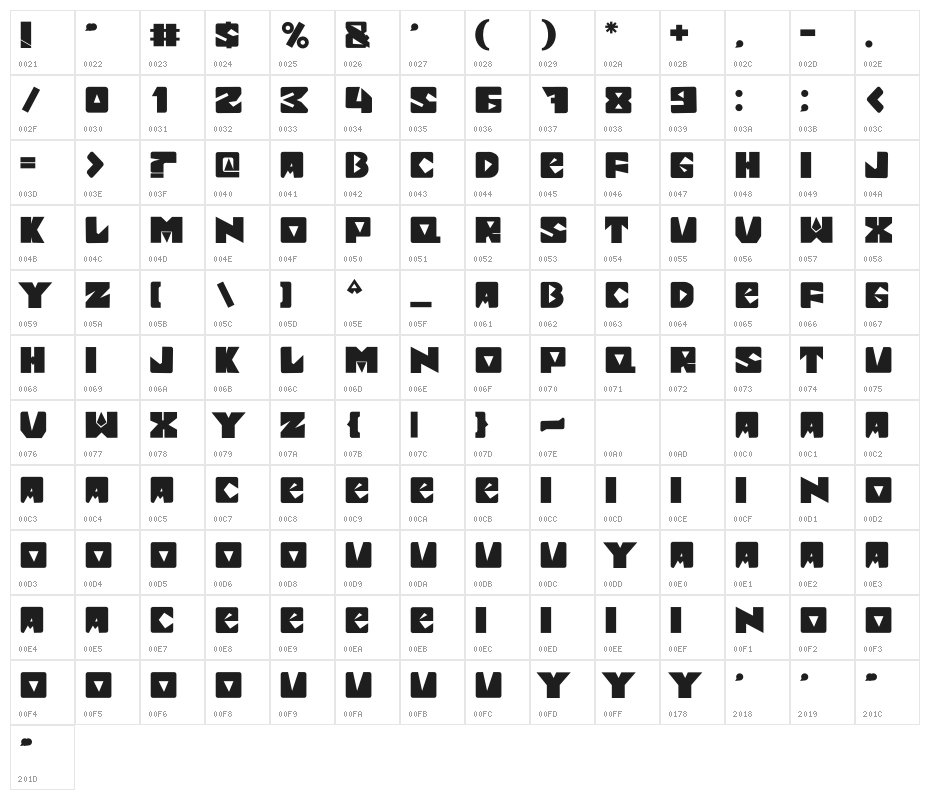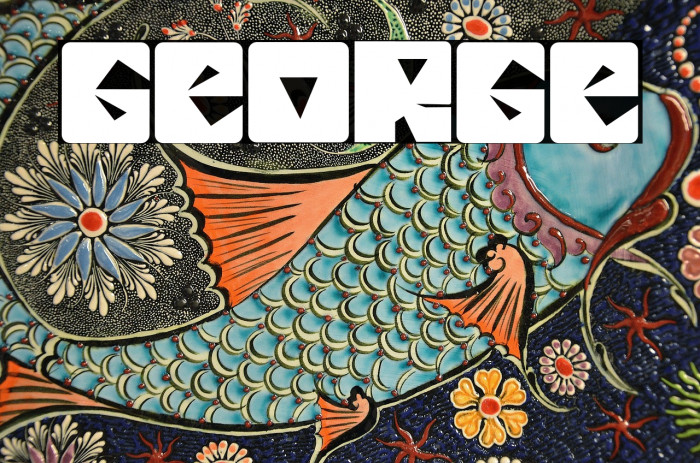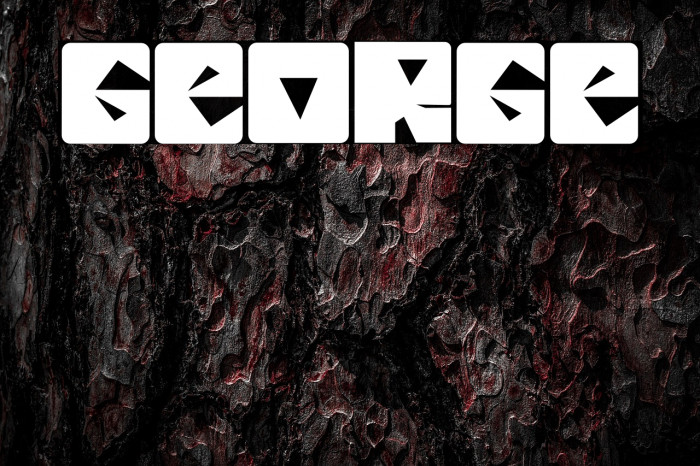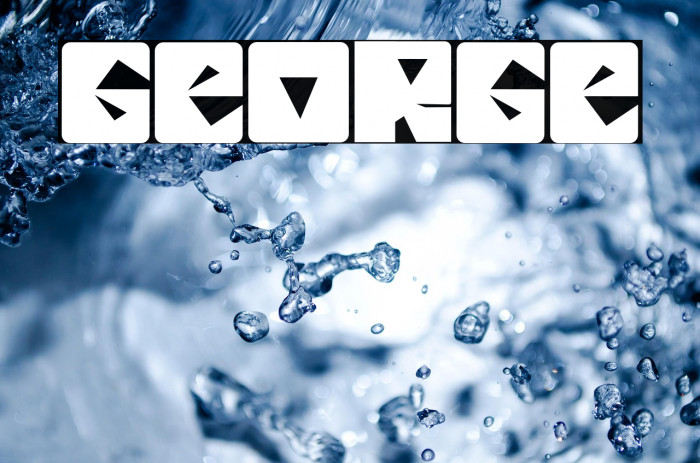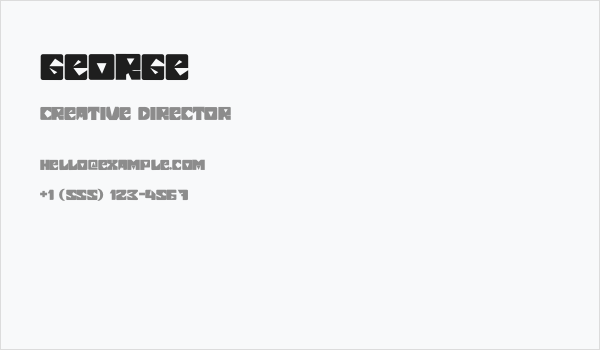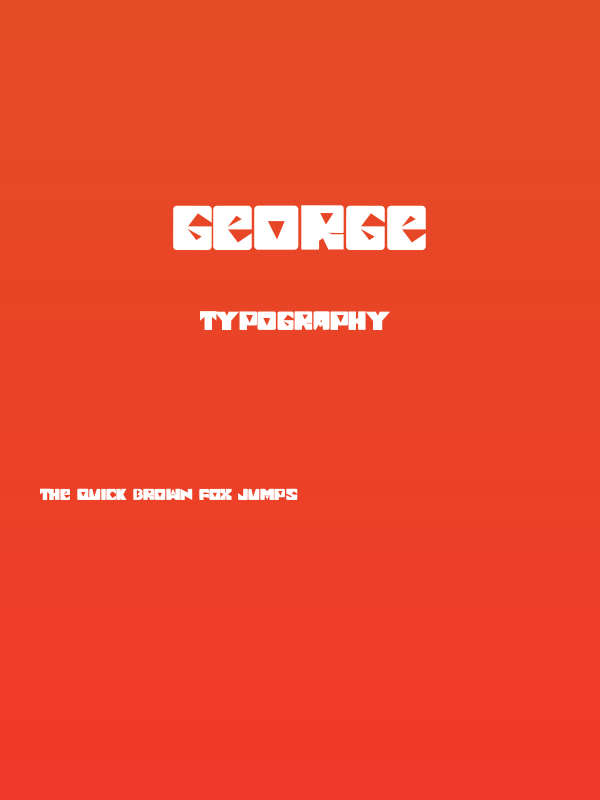
George Font
George Description
This font features a bold and geometric design with a strong presence. The characters are constructed with angular shapes and sharp edges, giving it a modern and edgy appearance. The uppercase and lowercase letters maintain a consistent style, with a blocky and robust structure. Numbers and special characters follow the same design principles, ensuring uniformity across all glyphs. The font's unique style makes it stand out, suitable for projects that require a strong visual impact.
| Proposed Projects | Ideal for branding, posters, headlines, and any design needing a bold statement. |